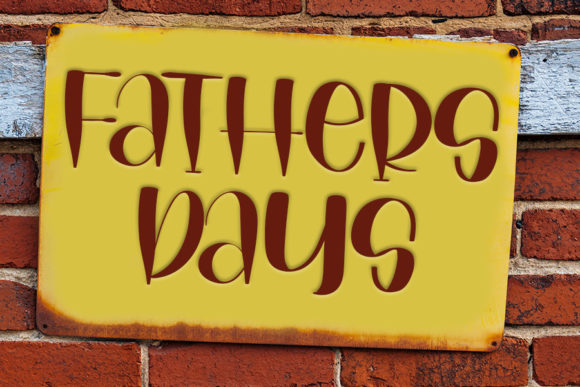
Welcome to the world of Fathers Days Font, a whimsical celebration of fatherhood in a beautiful handwritten script. This collection of charismatic characters is bursting with joy and warmth, bringing a touch of heartwarming charm to every design project.
Dive into the enchanting world of Fathers Days Font, a delightful script that dances across the page with a playful energy. Its expressive strokes and lively curves create an irresistible sense of joy, perfectly capturing the essence of fatherhood's special bond.
Fathers Days Font is not just a font; it's an expression of love and gratitude. Each letter is a brushstroke of affection, a heartfelt tribute to the incredible men who shape our lives. Its flowing lines and whimsical loops evoke a sense of nostalgia, reminding us of cherished memories and the unwavering support of our fathers.
Unleash your creativity and let Fathers Days Font transform your designs into heartwarming expressions of paternal love. Craft eye-catching display posters that radiate happiness and warmth, greeting cards that convey heartfelt messages, or social media posts that celebrate the extraordinary bond between fathers and their families.
Embrace the magic of Fathers Days Font and embark on a creative journey filled with smiles and cherished moments. Its captivating charm will add a touch of delight to any project, making it a perfect choice for designers, crafters, and anyone who wants to spread joy through the written word.
With Fathers Days Font, every word becomes a celebration of fatherhood, a heartfelt tribute to the unsung heroes who make our lives complete. Let its cheerful strokes weave a tapestry of love and appreciation, honoring the exceptional men who deserve our unwavering gratitude.
So, dive into the world of Fathers Days Font, let your creativity soar, and create designs that resonate with the joy, warmth, and unwavering love that fathers bring to our lives.